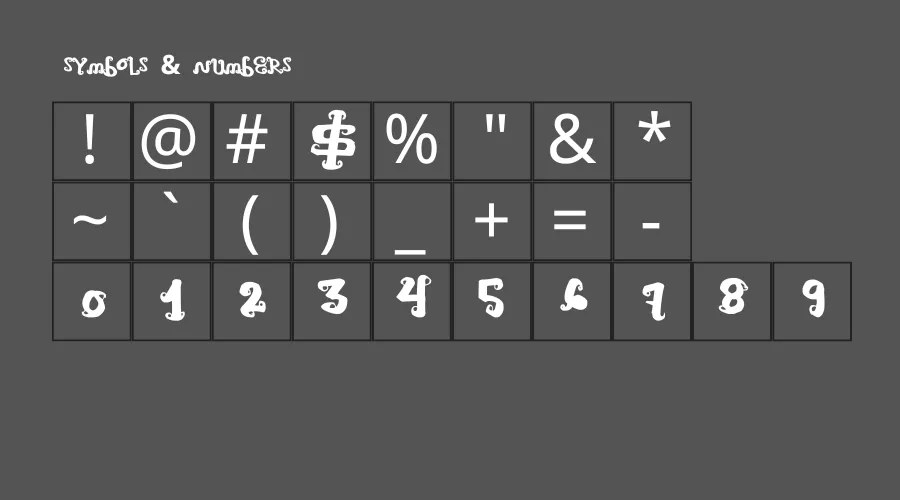
Art Times Font
About Art Times Font
Art Times Font is created by Xerographer Fonts it belongs to the Brush text style. A font with a distinct style and appearance. Most designers are looking for a font that has a splashy plus bold character appearance. So, we are providing this font free to download in OTF and TTF file versions.
Its fantastic characters and unusual glyphs provide your projects with a distinctive appearance. It is a font for tattoos. It was widely utilized in tattoo designs. You can use this font in Canva, CSS, and Adobe to create amazing fancy designs.
They made this typeface so attractive that it appeals to everybody. It is frequently used by designers in many brand projects. It quickly became everyone’s favorite after being released.
Having a highly elegant design, texturing can appeal to a significant viewer. It can be utilized in tattoo and graphic design. This typeface was popular among designers, and customers. You can utilize its copy-and-paste function in its text generator tool without any purchase.
This typeface is suitable for printing projects, billboards, advertising, video games, and symbols. Cards such as wedding invitations, birthday cards, and special occasion cards can all benefit from their powerful strokes. This can be used on social media sites such as Twitter, Instagram, and YouTube.
What is the type of Art Times Typeface?
Art Times is a contemporary Brush typeface. Art Times has a splashy and handwritten text style. Highlights with unique textual styles.